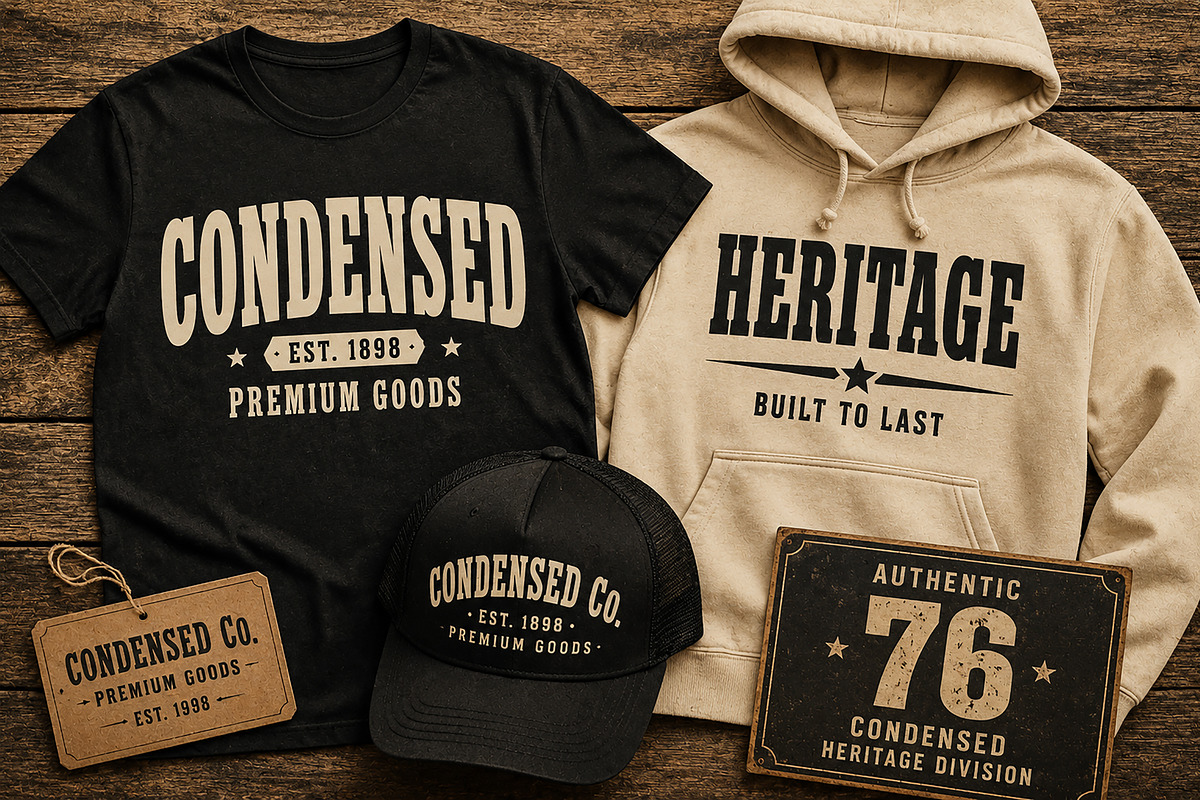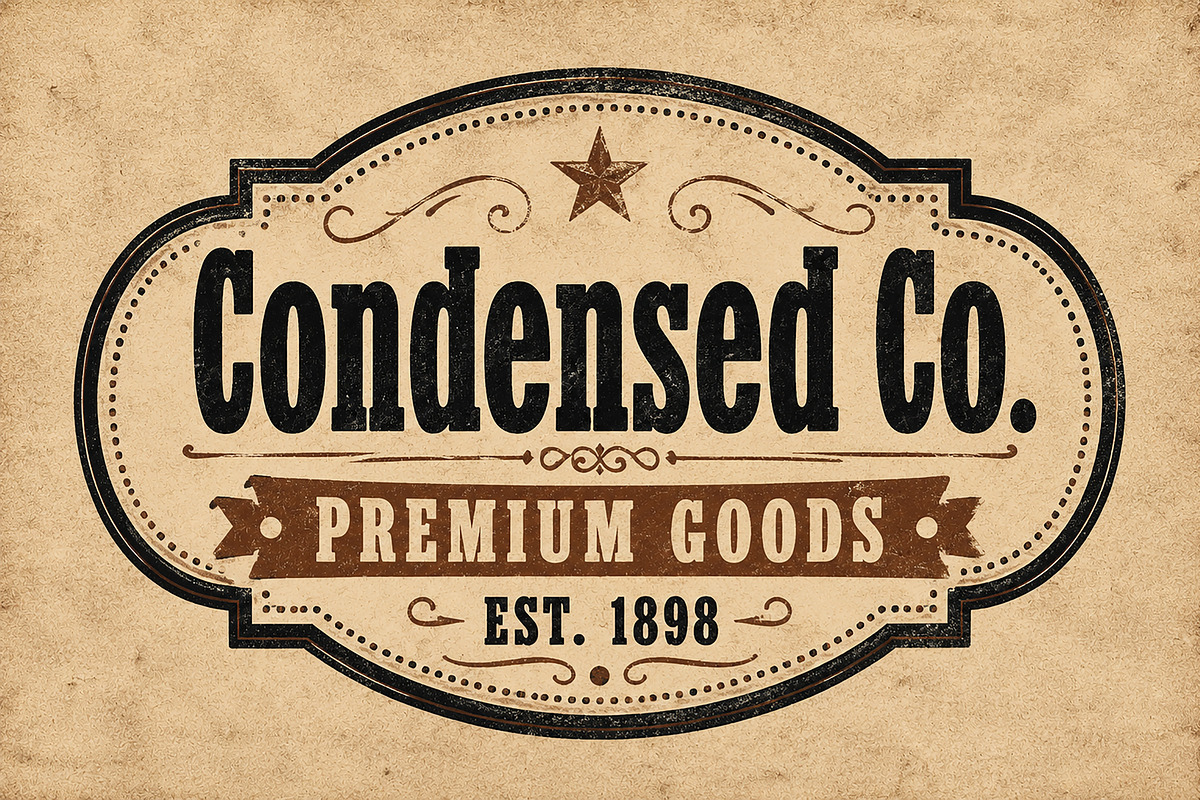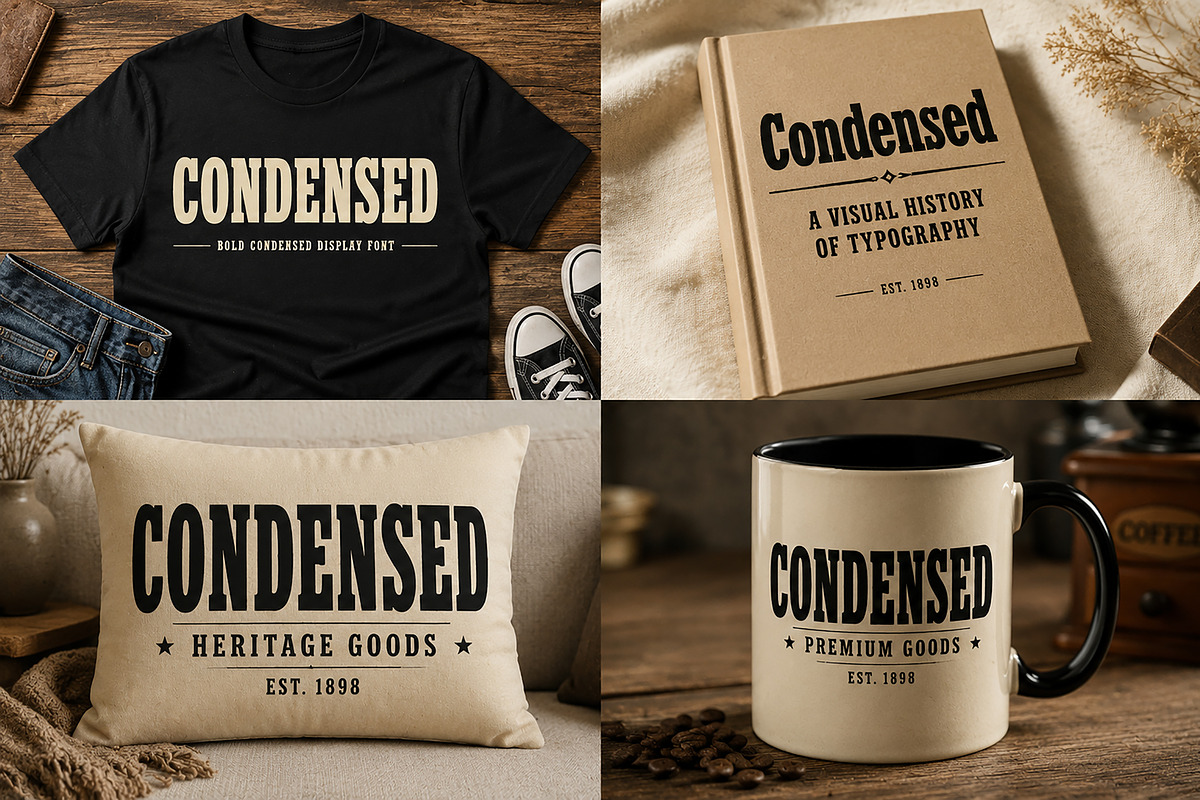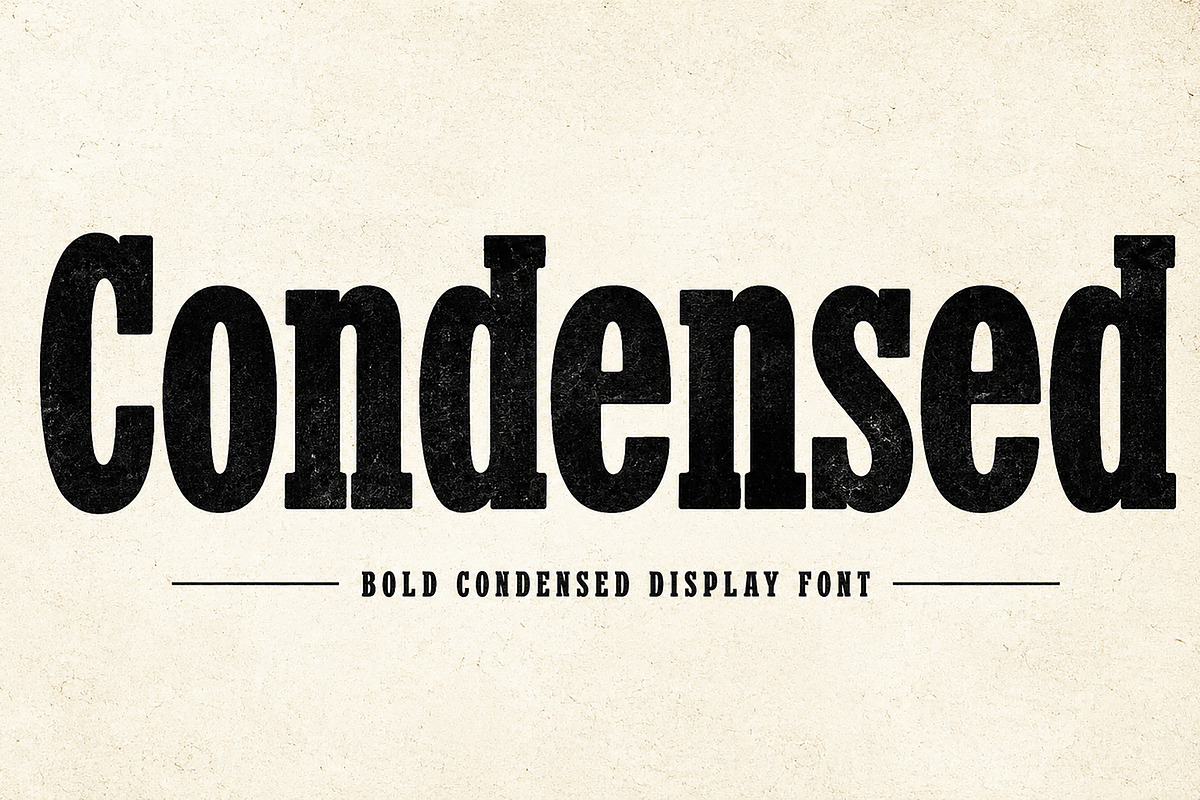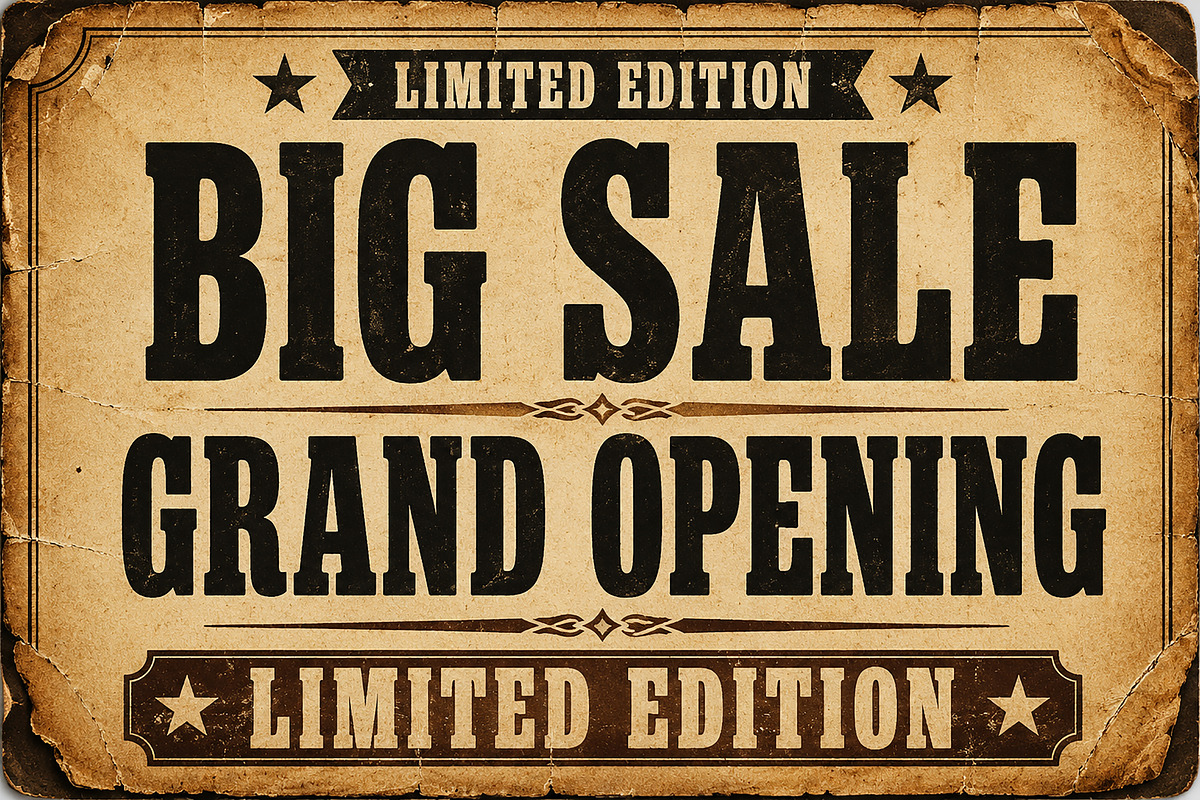
Condensed
Condensed – Bold Condensed Display Font
Description
Condensed is a bold and powerful display font designed to make a strong visual impact. Featuring tall, narrow letterforms with a vintage-inspired character, this typeface is perfect for headlines, posters, branding, packaging, apparel, logos, merchandise, and editorial designs.
Its strong condensed structure allows you to fit more text into limited space while maintaining excellent readability and visual presence. Whether you're creating a western-inspired poster, heritage branding, product labels, t-shirt graphics, book covers, or advertising materials, Condensed delivers a timeless and professional look.
This font combines classic vintage aesthetics with modern versatility, making it an excellent choice for designers, creators, and businesses seeking bold typography with character.
Branding & Identity
Vintage Labels
Posters & Flyers
Apparel & Merchandise
Editorial Layouts
Signage
Advertising
Headlines & Titles
Uppercase Characters
Lowercase Characters